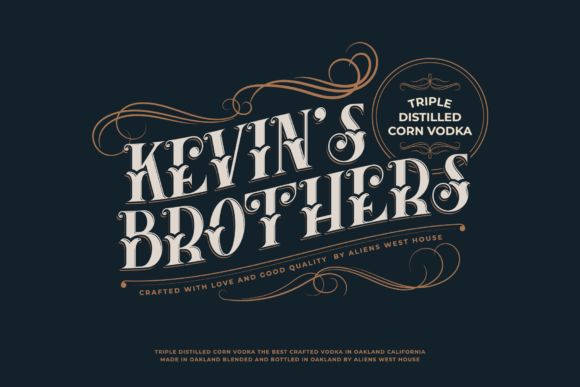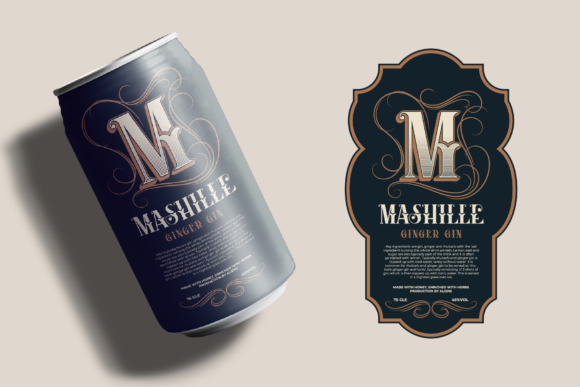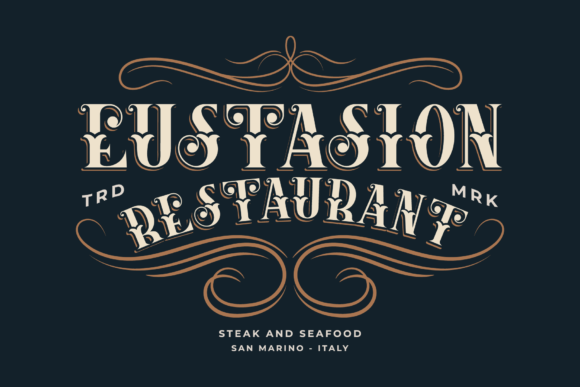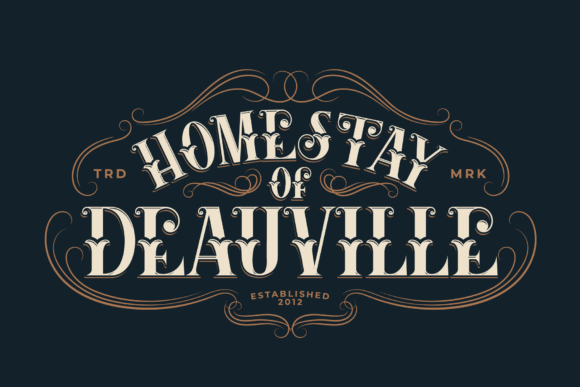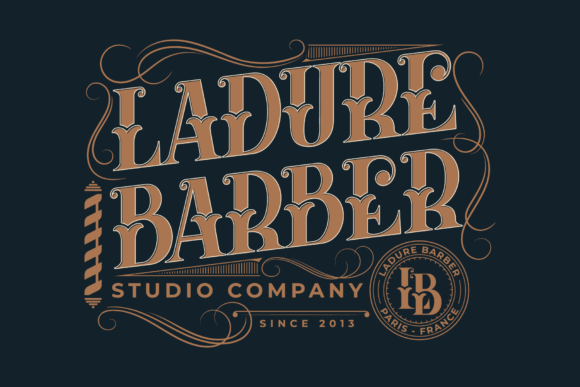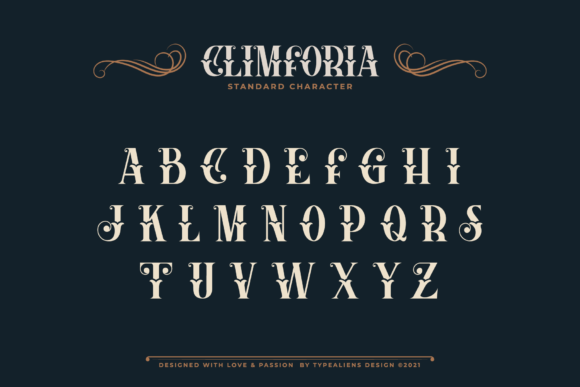
Introducing Climforia Font: Elevate Your Designs with a Touch of Vintage Elegance
In the world of typography, fonts play a crucial role in conveying messages, evoking emotions, and setting the tone for creative projects. For designers and crafters seeking a unique and stylish display font, Climforia Font is an exceptional choice. This distinct and vintage-styled font is meticulously crafted with intricate details, making it a valuable addition to any font library.
What Makes Climforia Font Stand Out?
Climforia Font boasts a classic, timeless aesthetic that instantly adds a touch of sophistication to any design. Its vintage flair is expertly balanced with modern sensibilities, ensuring versatility across various applications. Whether you’re working on a logo, branding materials, packaging, or digital content, Climforia Font is poised to elevate your creations.
Key Features of Climforia Font
- Distinctive Vintage Style: Climforia Font’s unique blend of classic and contemporary elements sets it apart from more generic fonts.
- Highly Detailed: The font’s intricate details and carefully crafted lines make it perfect for projects requiring a high level of visual sophistication.
- Versatile: Suitable for a wide range of applications, from print materials to digital platforms.
- Easily Readable: Despite its ornate nature, Climforia Font remains clear and legible, making it ideal for display text and headlines.
Perfect for Various Creative Projects
The versatility of Climforia Font makes it an excellent choice for numerous creative endeavors. Here are a few ideas to get you started:
- Branding and Logo Design: Create a lasting impression with a unique logo that incorporates Climforia Font, setting your brand apart from the competition.
- Packaging Design: Add a touch of elegance to product packaging, making it more visually appealing and memorable.
- Digital Content: Enhance blog posts, social media graphics, and website headers with Climforia Font, giving your online presence a sophisticated look.
- Print Materials: From business cards to posters, Climforia Font can elevate a wide range of print materials, adding a level of refinement and class.
Why Choose Climforia Font?
In a sea of generic fonts, Climforia Font offers a refreshing alternative. Its unique character and detailed craftsmanship make it an invaluable resource for designers and crafters looking to infuse their work with personality and style. By choosing Climforia Font, you’re not just selecting a typeface; you’re investing in a design element that can transform your projects and leave a lasting impact on your audience.
Climforia Font is more than just a display font; it’s a creative tool that can elevate your designs and set them apart. With its vintage charm, intricate details, and versatility, Climforia Font is poised to become a favorite in your font library. Whether you’re a seasoned designer or a crafter looking to add a professional touch to your work, Climforia Font is an excellent choice. Explore its potential and discover how it can enhance your creative projects.